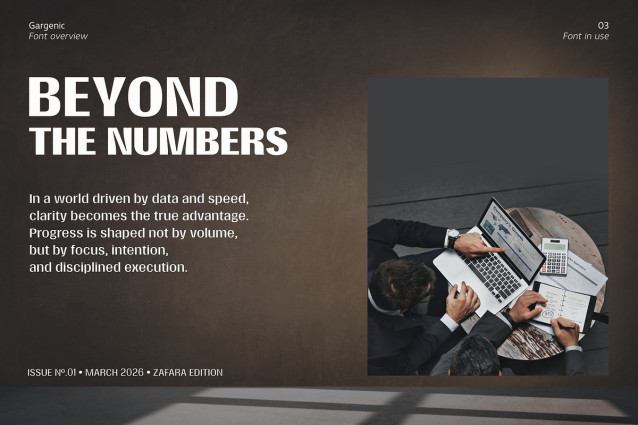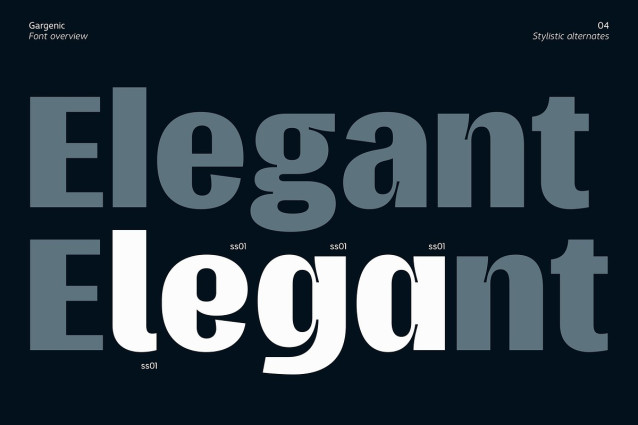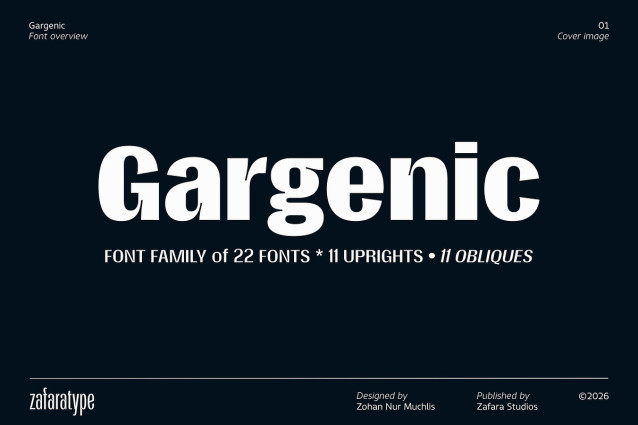
Gargenic Font
Gargenic Font is a bold and contemporary sans serif font family that blends strong geometric construction with refined proportions and distinctive inktrap detailing. Characterized by its sharp corners, compact forms, and precision-cut terminals, Gargenic delivers high visual impact with excellent clarity, making it ideal for designs that demand strength, modernity, and a confident tone.
With balanced proportions and engineered precision, Gargenic bridges functional typography and expressive display aesthetics. Whether used for striking headlines or bold branding systems, it brings authority, energy, and a clean contemporary presence to any project.